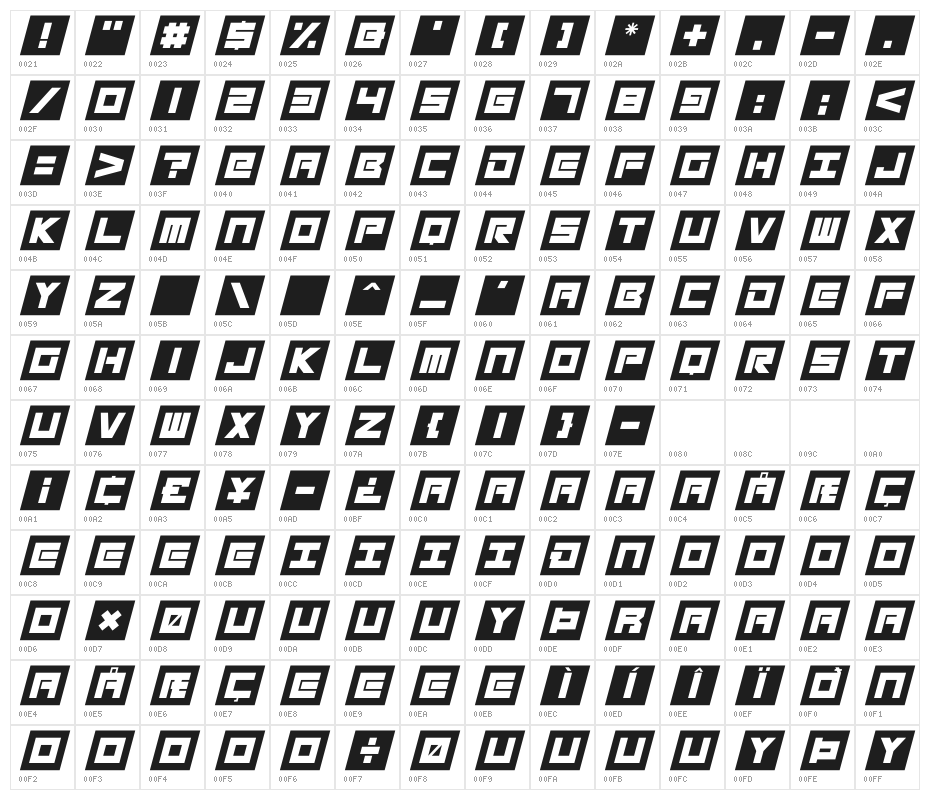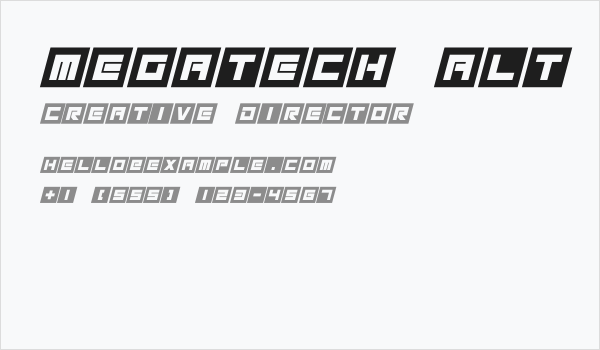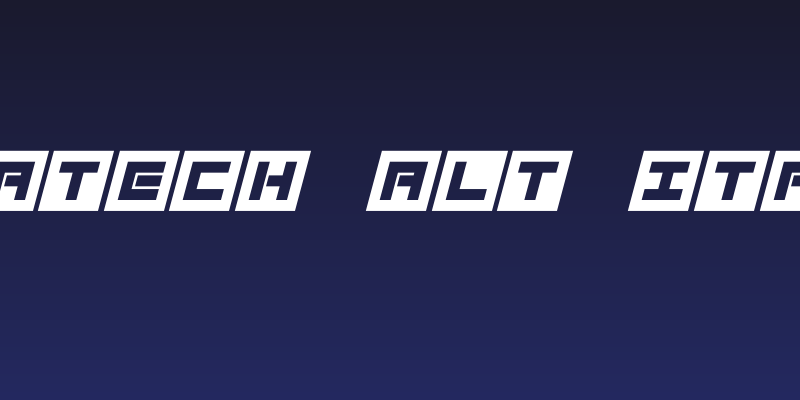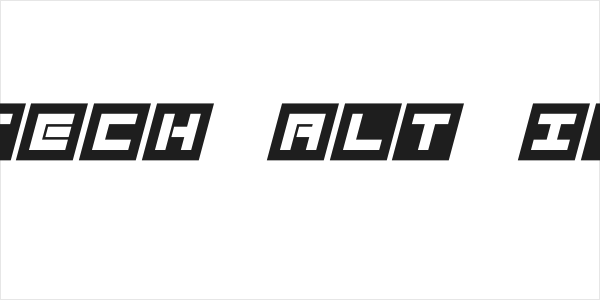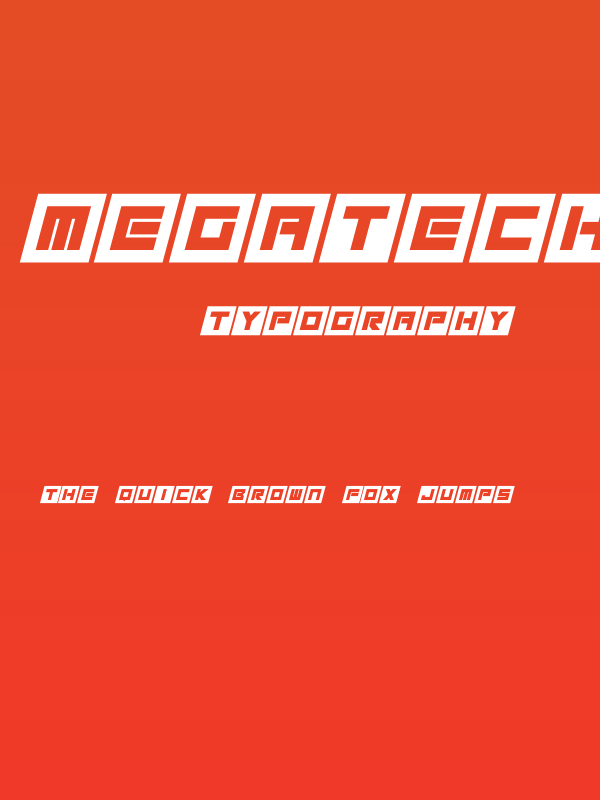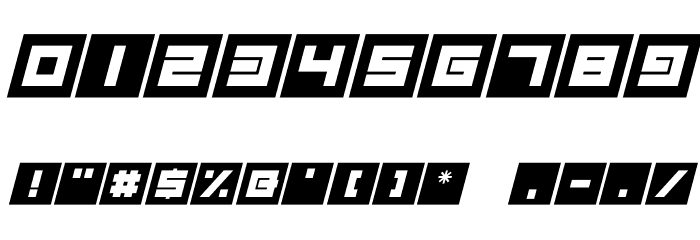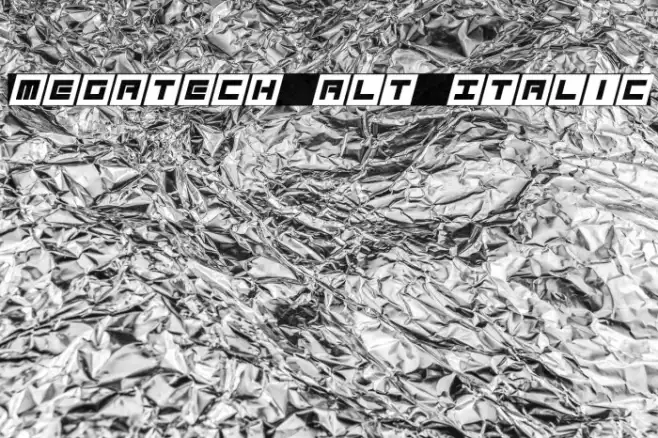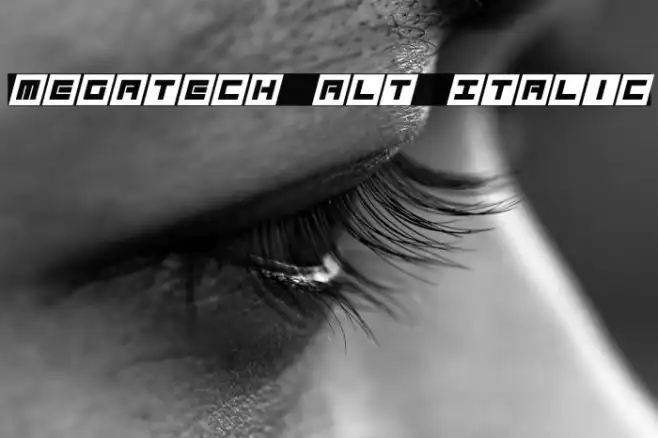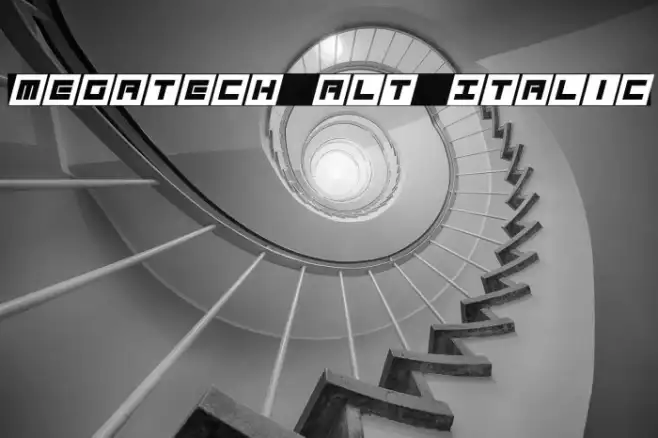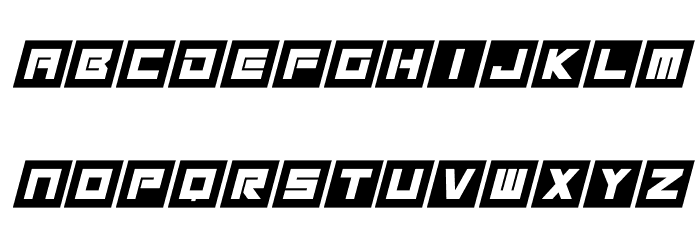
Megatech Alt Italic Font
Megatech Alt Italic Description
This font features a bold, futuristic design with a strong geometric structure. Each character is enclosed in a rectangular shape, giving it a distinct, blocky appearance. The italic slant adds a dynamic and forward-moving feel, enhancing its modern aesthetic. The uppercase and lowercase letters maintain a consistent style, with sharp angles and clean lines. The numbers and special characters follow the same design principles, ensuring uniformity across all elements. This font is ideal for projects that require a tech-savvy, modern look.
| Proposed Projects | Ideal for technology branding, sci-fi posters, video game titles, and futuristic designs. |